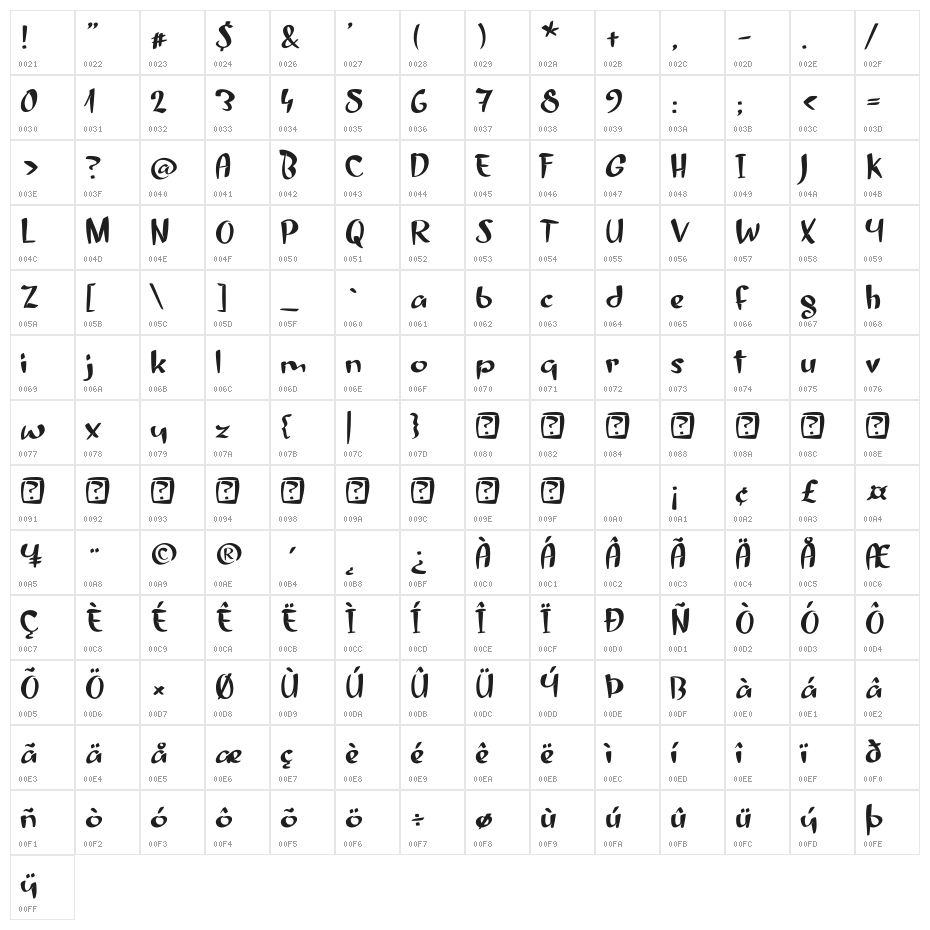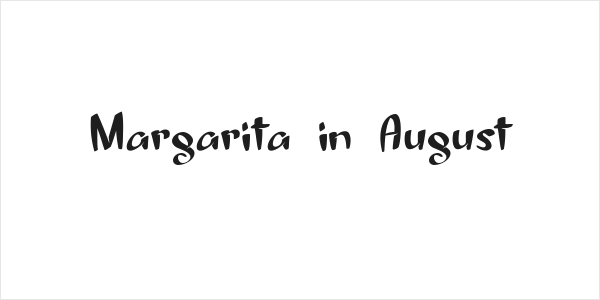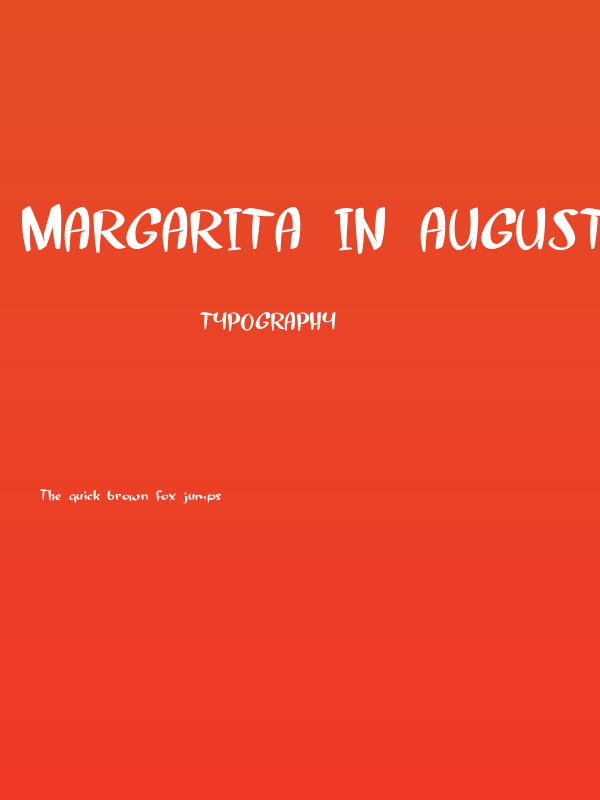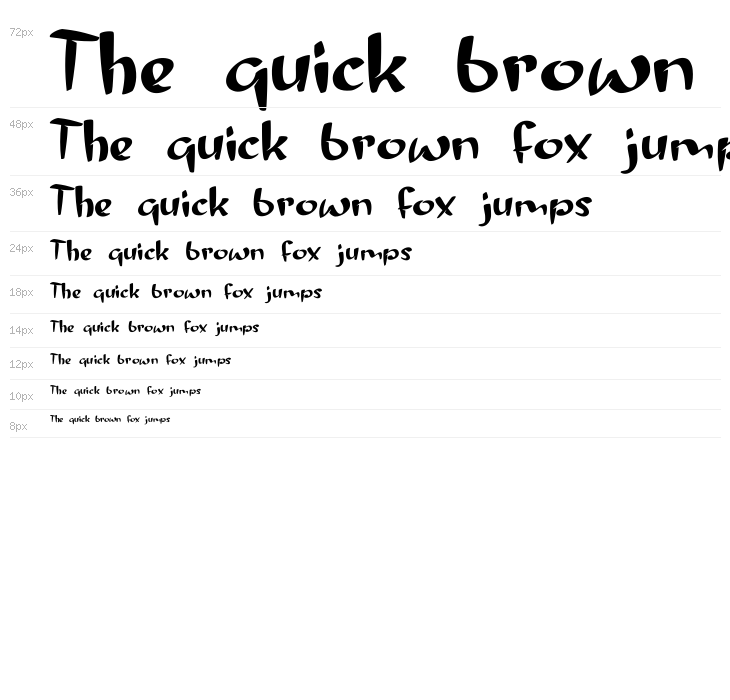
Margarita in August Font
Margarita in August Description
This font exudes a lively and playful character with its bold, sweeping strokes and dynamic curves. The letters have a hand-drawn quality, giving them a whimsical and artistic flair. The uppercase letters are particularly striking, with exaggerated curves and varying stroke widths that add a sense of movement and energy. The lowercase letters maintain this playful style, with some characters featuring unique loops and swirls. The numbers and special characters are equally expressive, fitting seamlessly into the overall design. This font is perfect for projects that require a touch of creativity and individuality.
| Proposed Projects | Ideal for creative projects such as greeting cards, posters, branding, and social media graphics. |